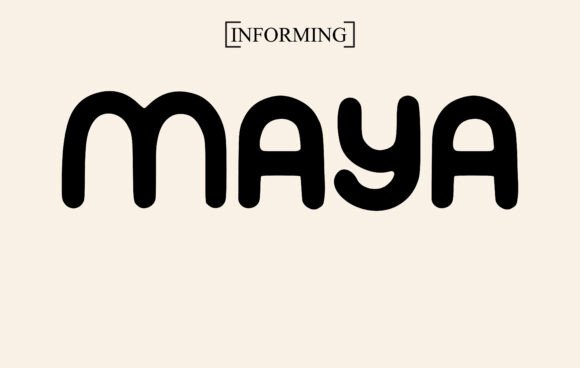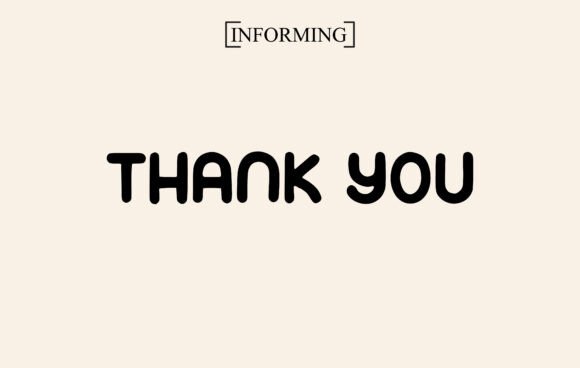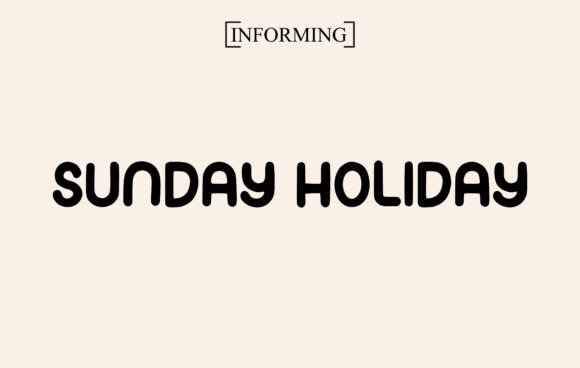
Maya Font: A Cute, Modern Sans Serif for Social Media Design
About the Maya Font
Let us introduce you to Maya Font, where timeless design meets modern craftsmanship. Maya is designed to be a true favorite; this font has the potential to take your creative ideas to the highest level
Maya’s strong, confident strokes make it ideal for headlines, branding applications, and short impactful statements on posters or packaging. Its legibility is sufficient for short body text sections, but its weight isn’t optimized for extensive use in paragraphs or UI elements where readability over long stretches is crucial.
The font possesses a bold, yet friendly personality. It works exceptionally well for brands projecting confidence and approachability—think lifestyle brands, artisanal products, or even educational institutions seeking a modern feel.
Maya Font Usage Examples
Maya Font Example